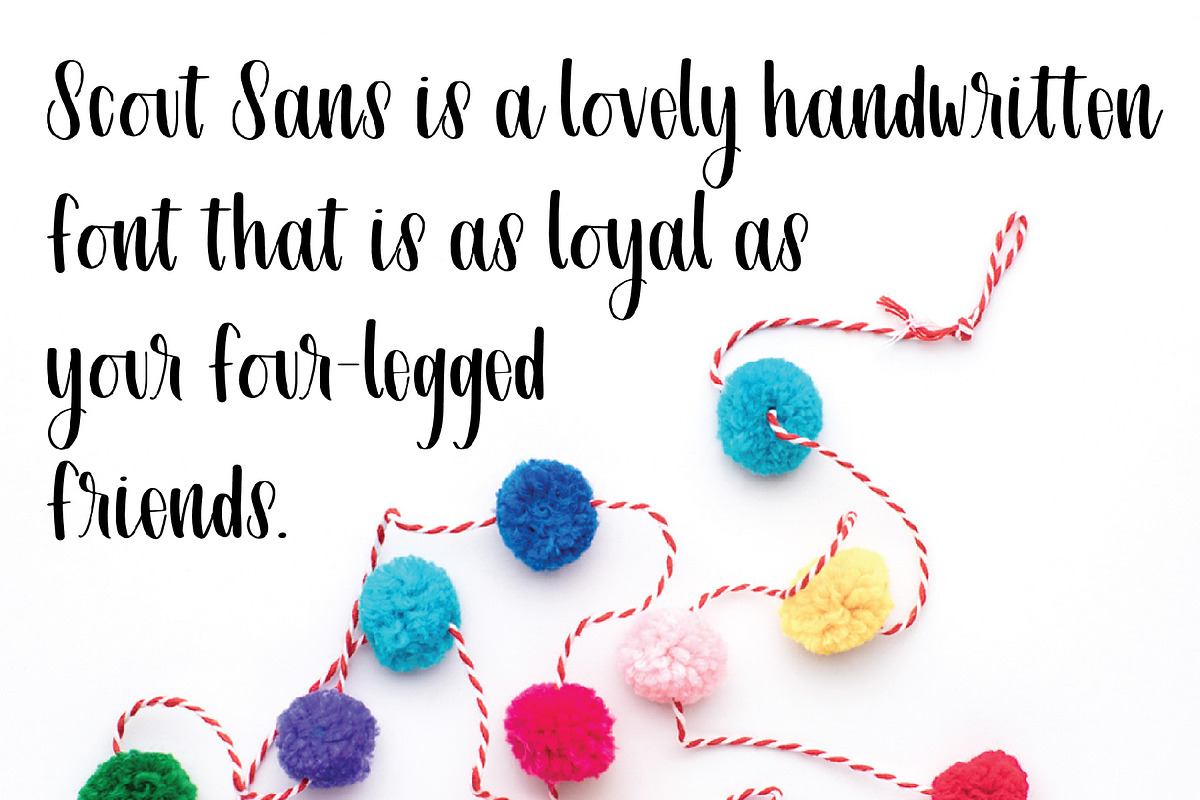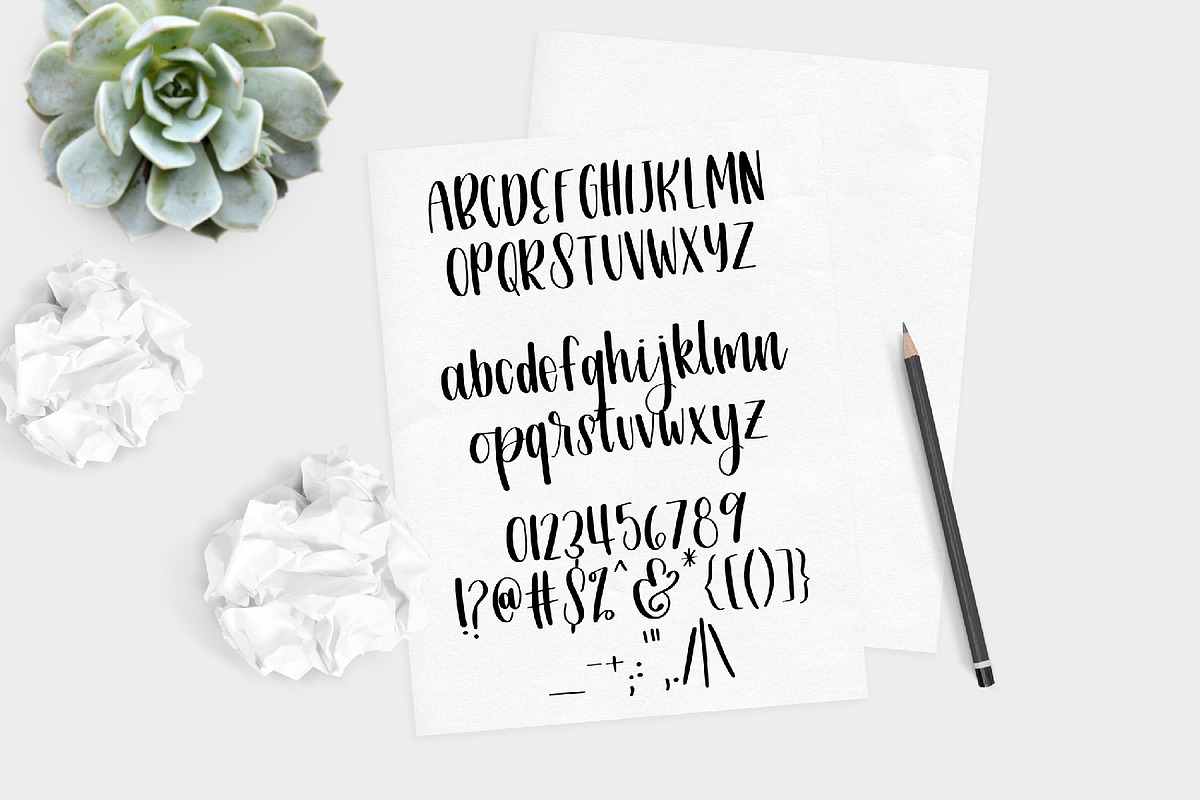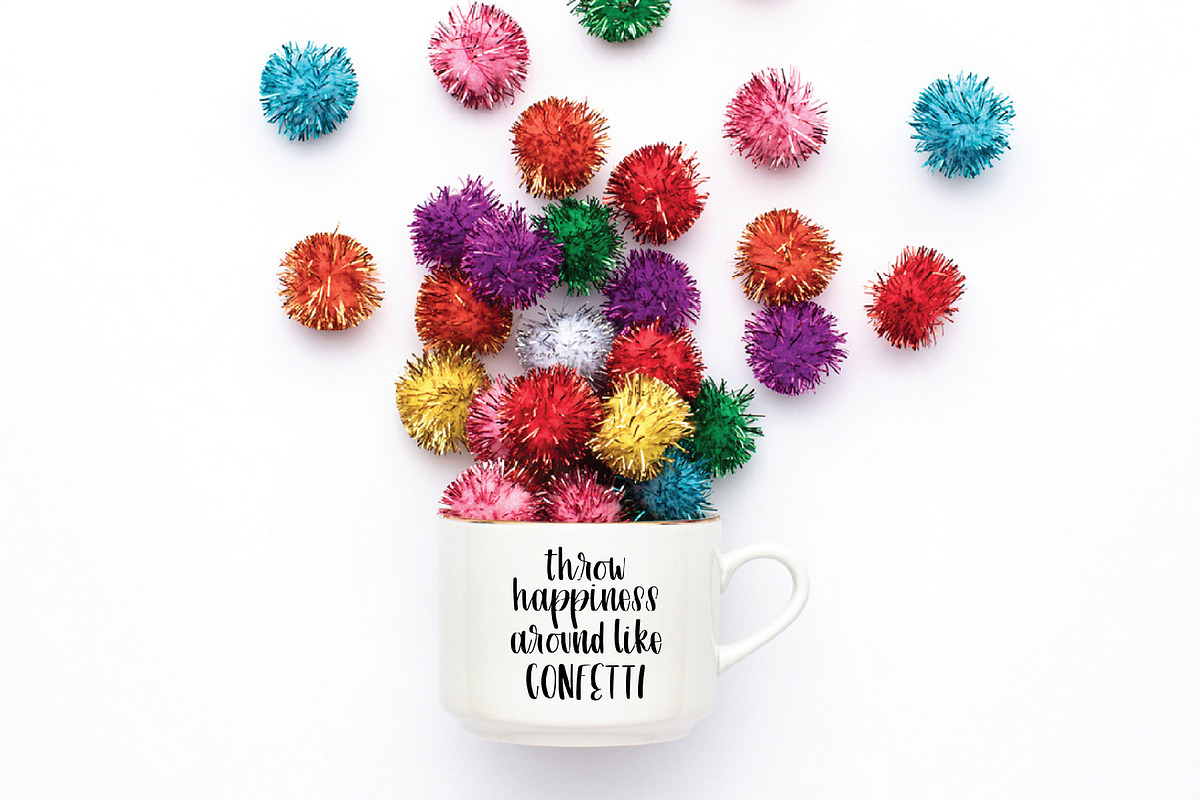
Scout Sans Handwritten Font
Scout Sans is a lovely handwritten font that is as loyal as your four-legged friend! (Scout Sans is named for one of Hewitt Avenue's pups!)
Because Scout Sans is a mini font, it includes uppercase, lowercase, numbers, and basic english symbols. Feel free to give it a test run below!